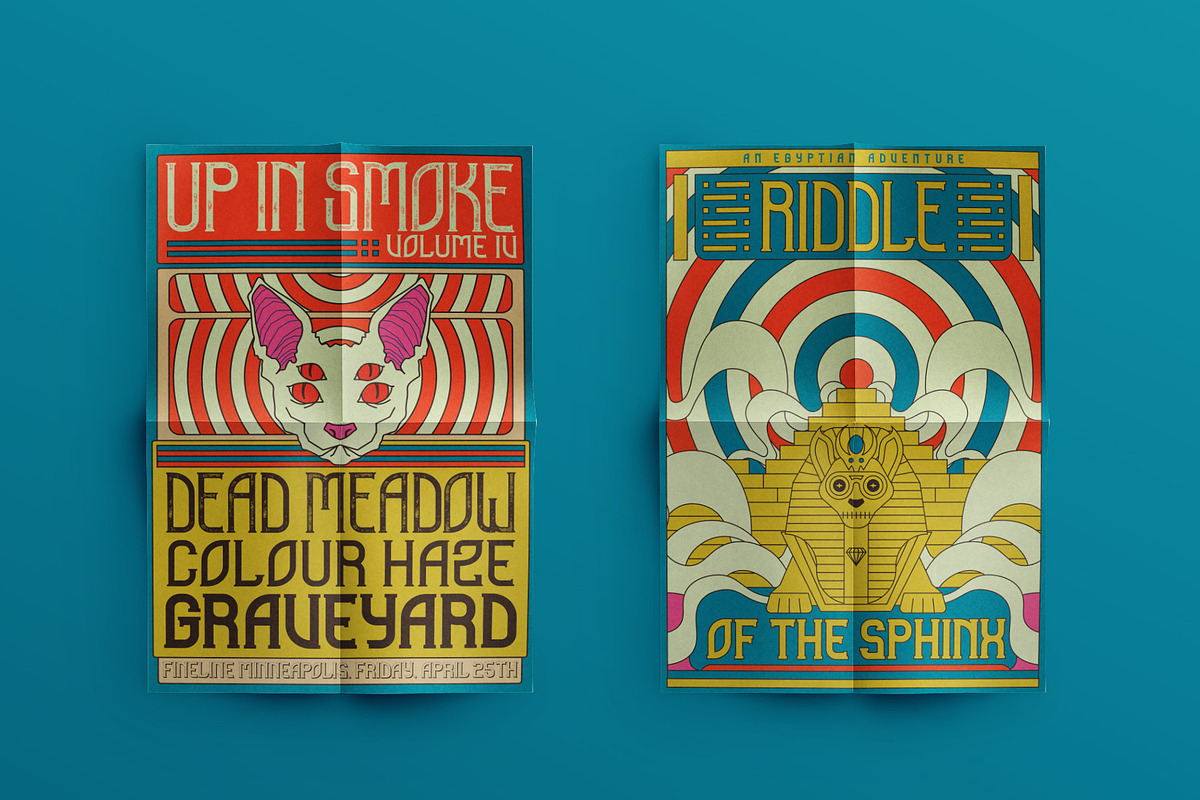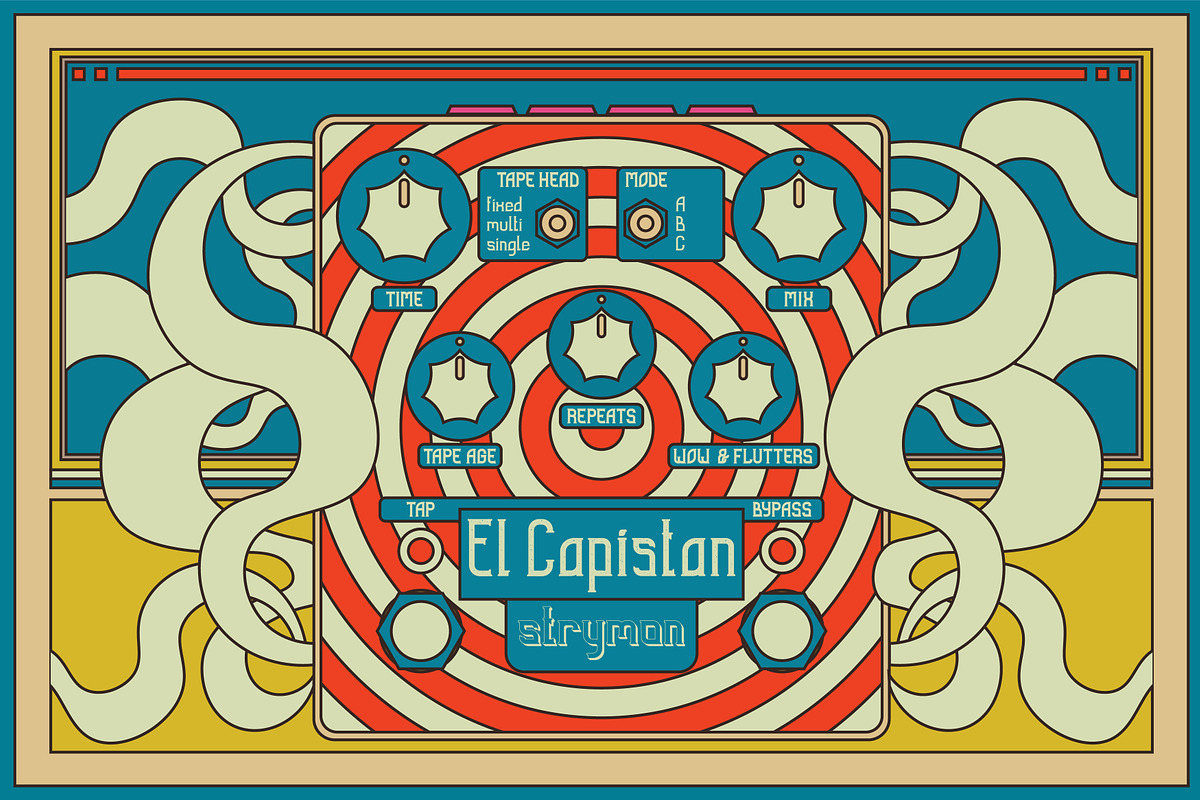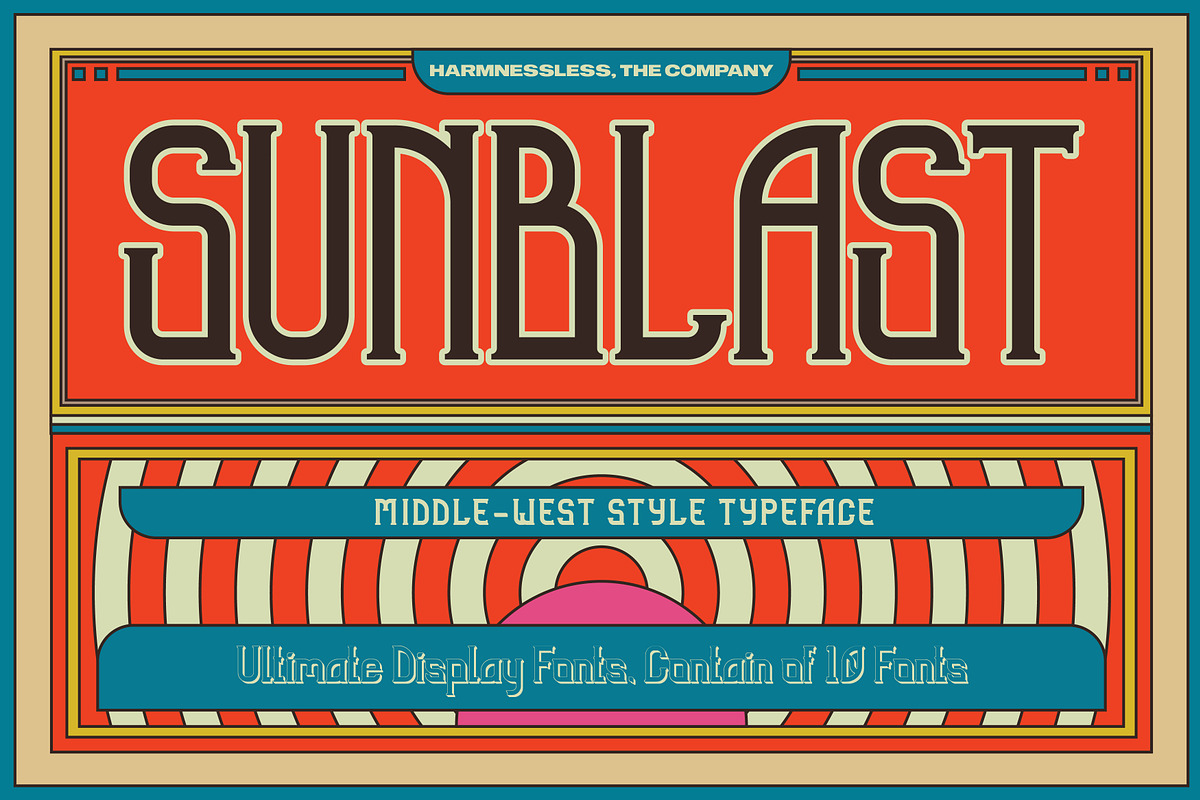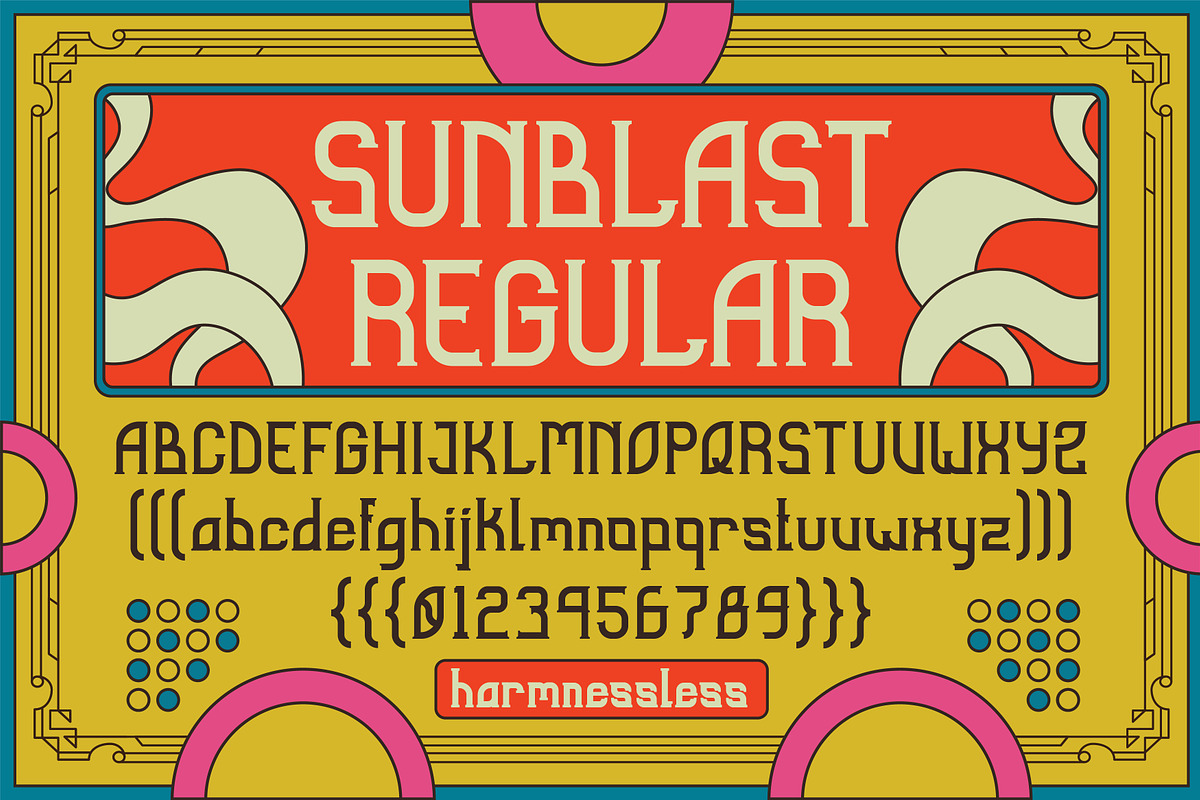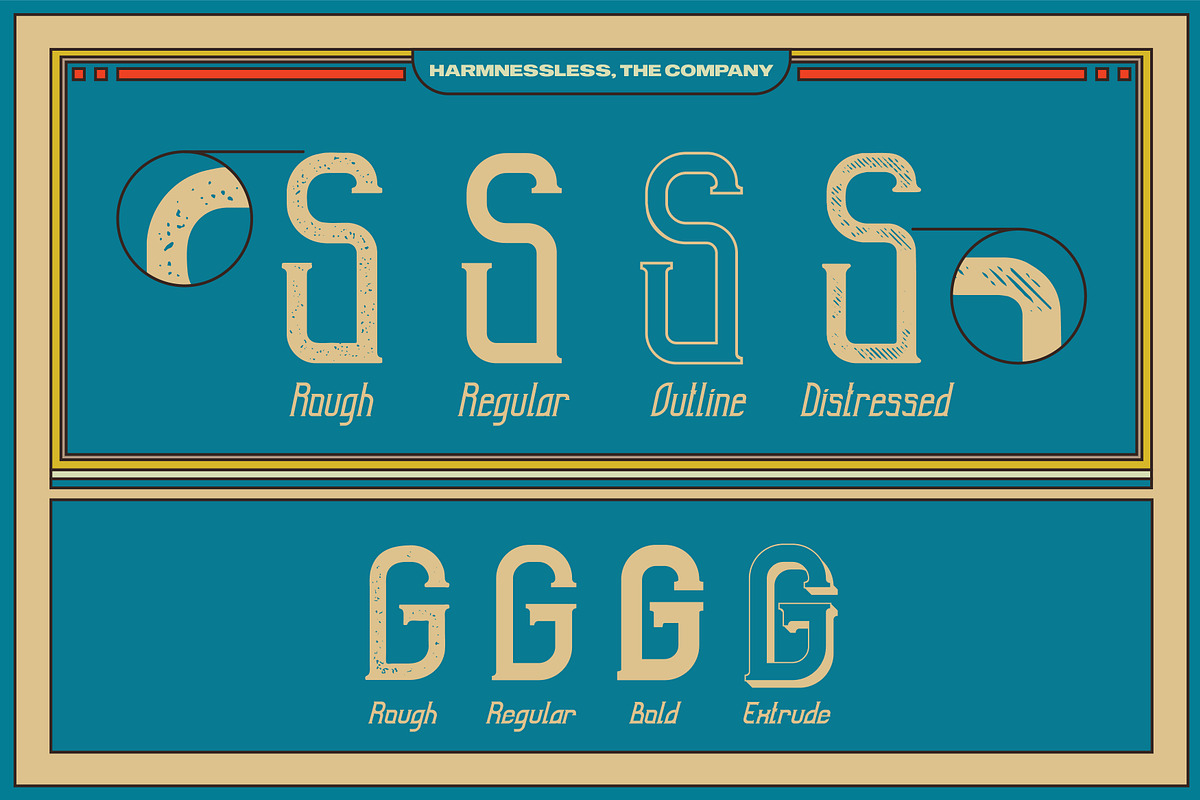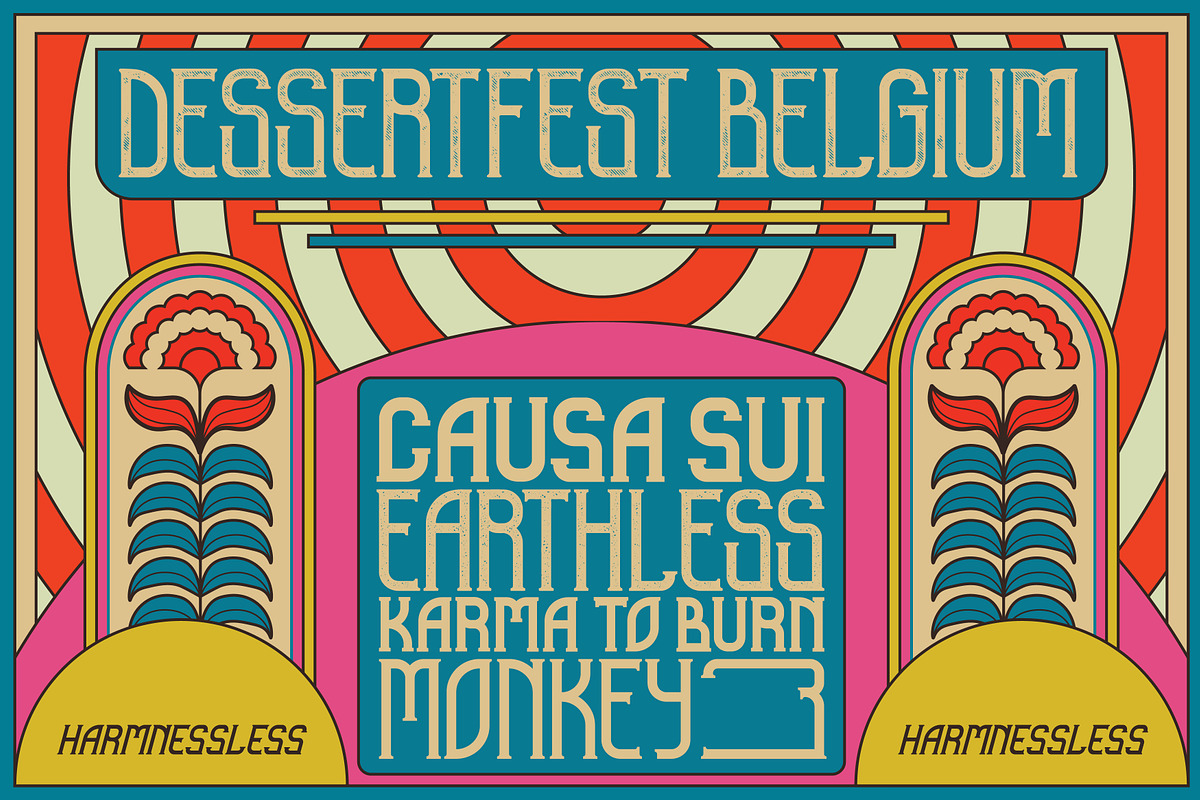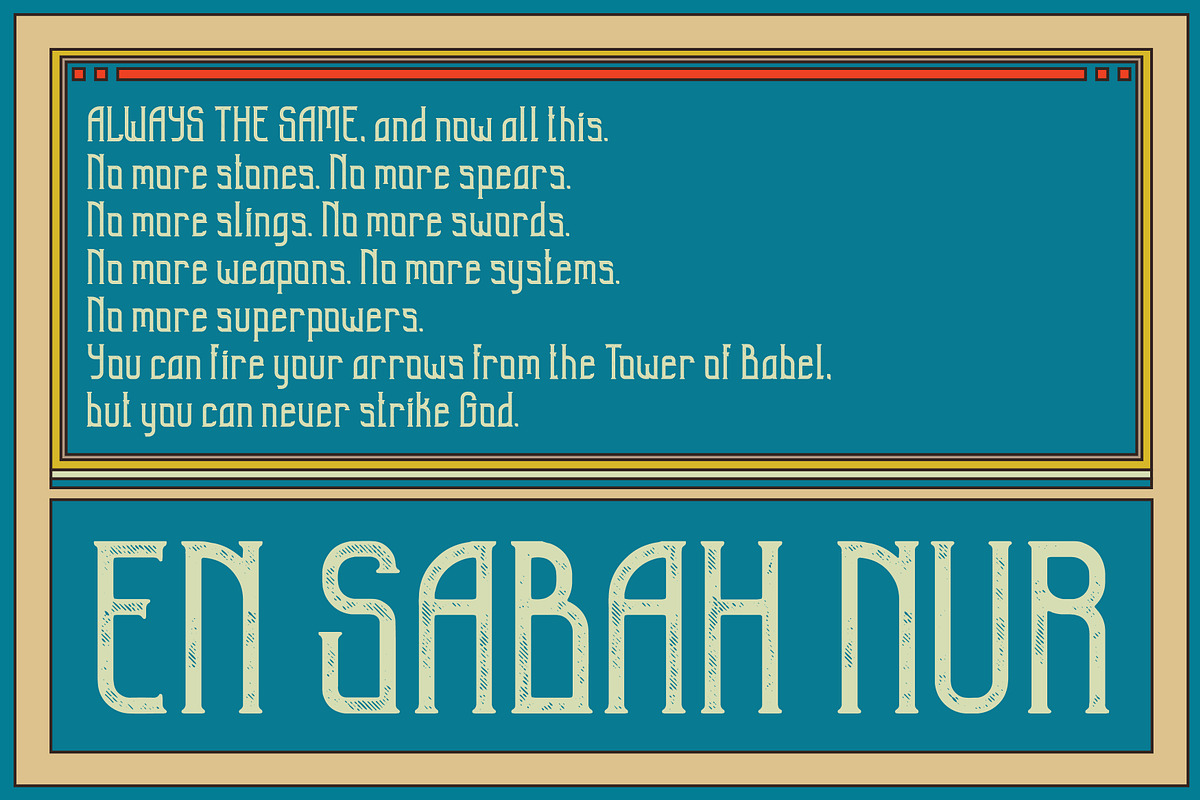
Sunblast Display Typeface
Sunblast - Mid-west style typeface contain of 10 fonts
Sunblast is Display Font Family with 10 styles inspired by neo-psychedelic-stoner scene. Designed in a modern Egyptian style.
More than 1000 glyphs was crafted inside Sunblast Display Font.
Uppercase & lowercase
Punctuation & symbols
Perfect for branding, poster, apparel, publication design, etc